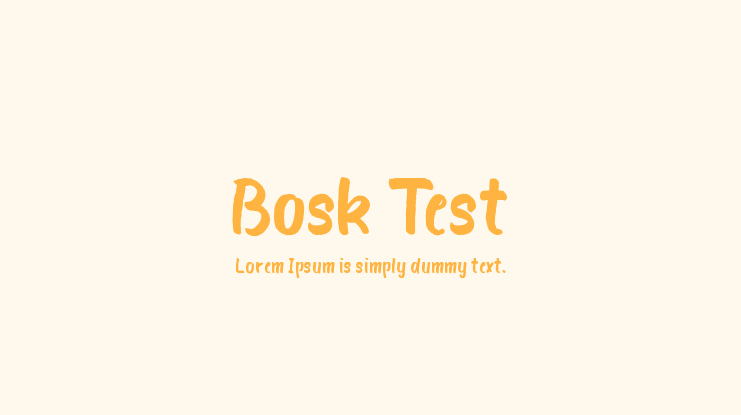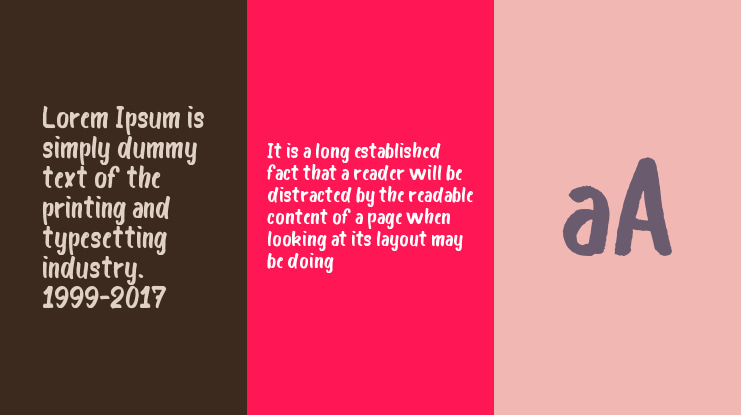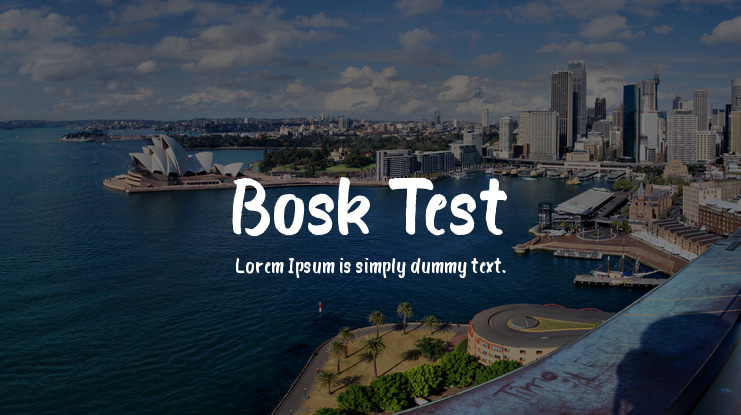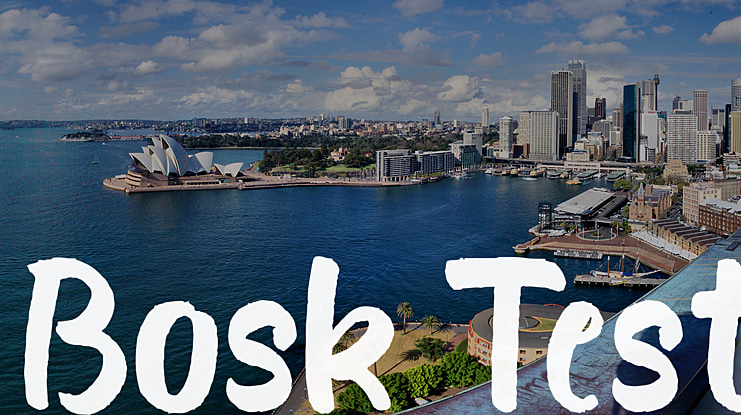
Bosk Test Font Family
Boris Garic
Bosk is a handwritten brush typeface suitable for everything vintage and overall that handmade feel.It has over 400 characters and multilingual support.